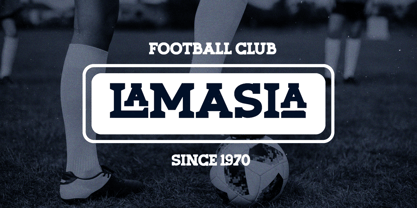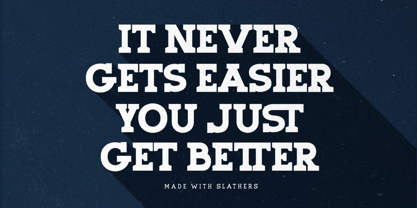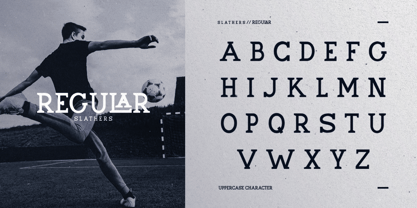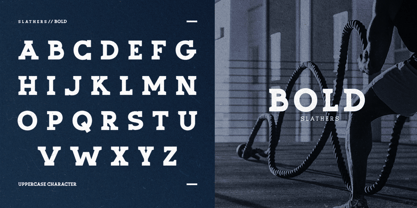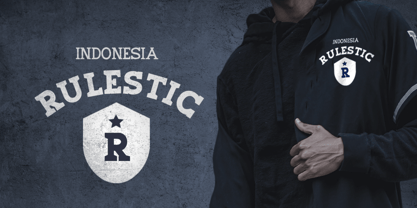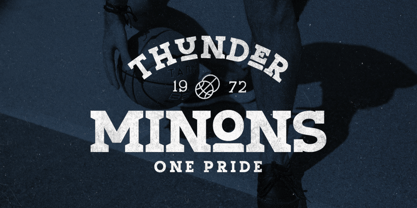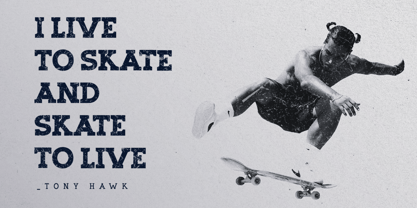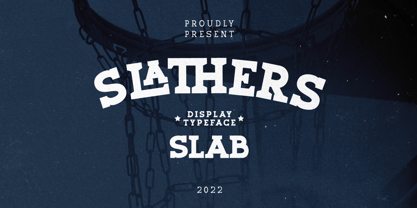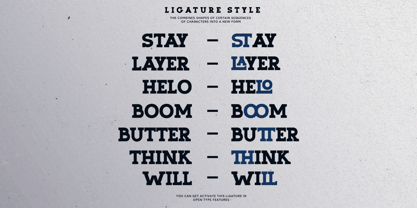
Slathers
by Bale Type
The Slathers Font Family was designed by Sarid Ezra, Dzikrul Aulia and published by Bale Type. Slathers contains 2 styles and family package options.
Slathers is a slab serif font family with bunch of ligatures. Comes with two styles, Regular and Bold, will make your project stunning and strong. You can use this fonts for branding, logotype, especially for basketball and sport logo. This fonts also support multilingual.
Designers: Sarid Ezra, Dzikrul Aulia
Publisher: Bale Type
Foundry: Bale Type
Design Owner: Bale Type